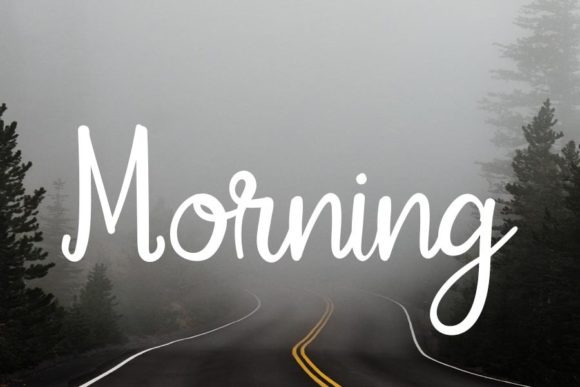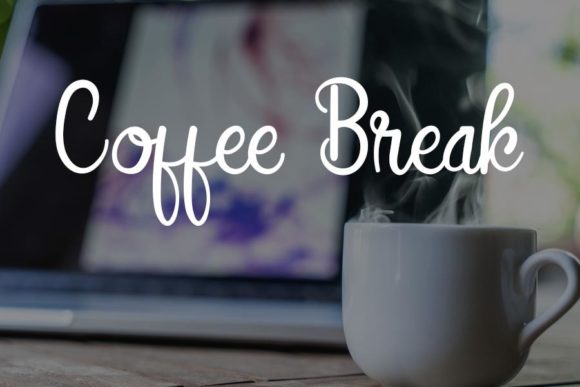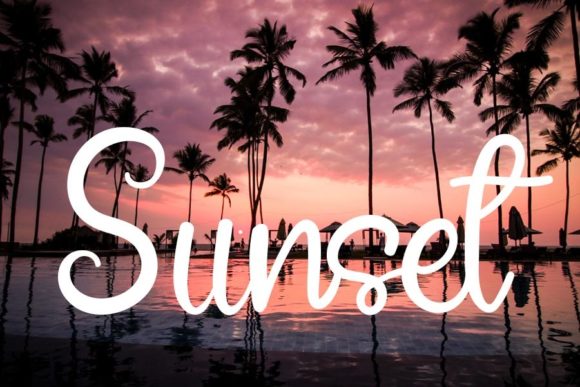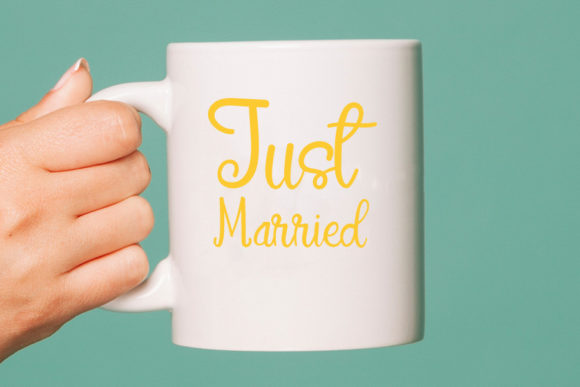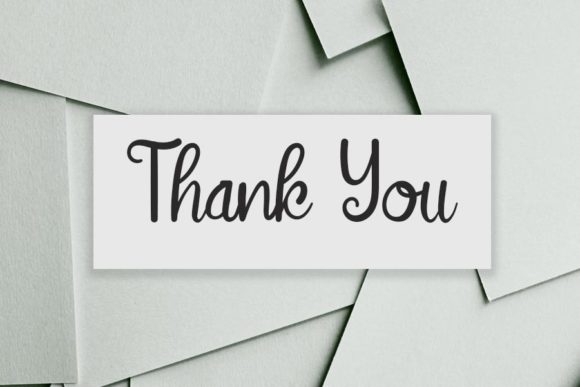
Just Married Font
Introducing “Just Married,” an incredibly unique handwritten font that is sure to captivate and inspire. Crafted with meticulous attention to detail, this font is designed to become an instant favorite among designers and creatives alike.
The distinctive style of “Just Married” sets it apart from other fonts, making it a standout choice for any project. Whether you’re designing wedding invitations, love letters, anniversary cards, or any other romantic-themed creations, this font will add a touch of elegance and charm.
The flowing and organic letterforms of “Just Married” create a sense of movement and grace, evoking the joy and excitement of a new chapter in life. Its unique handwritten style brings a personal and heartfelt touch to your designs, allowing you to convey emotions and messages with authenticity.
The versatility of “Just Married” extends beyond wedding-related projects. Its enchanting appeal makes it suitable for a wide range of creative endeavors. From branding and packaging designs to social media graphics and quotes, this font can elevate any project to new heights.
With “Just Married,” you have the opportunity to unleash your creativity and express your ideas with a font that truly stands out. Its unique and captivating nature will grab attention and leave a lasting impression on viewers.
Embrace the beauty and individuality of “Just Married” and watch as it brings each of your creative ideas to life. Whether you’re designing for personal or professional purposes, this font is sure to become a cherished tool in your design arsenal.
So, go ahead and explore the endless possibilities of “Just Married.” Let its distinctive style and refined elegance elevate your designs and create memorable experiences for your audience. Get ready to embark on a creative journey like no other with “Just Married” by your side!